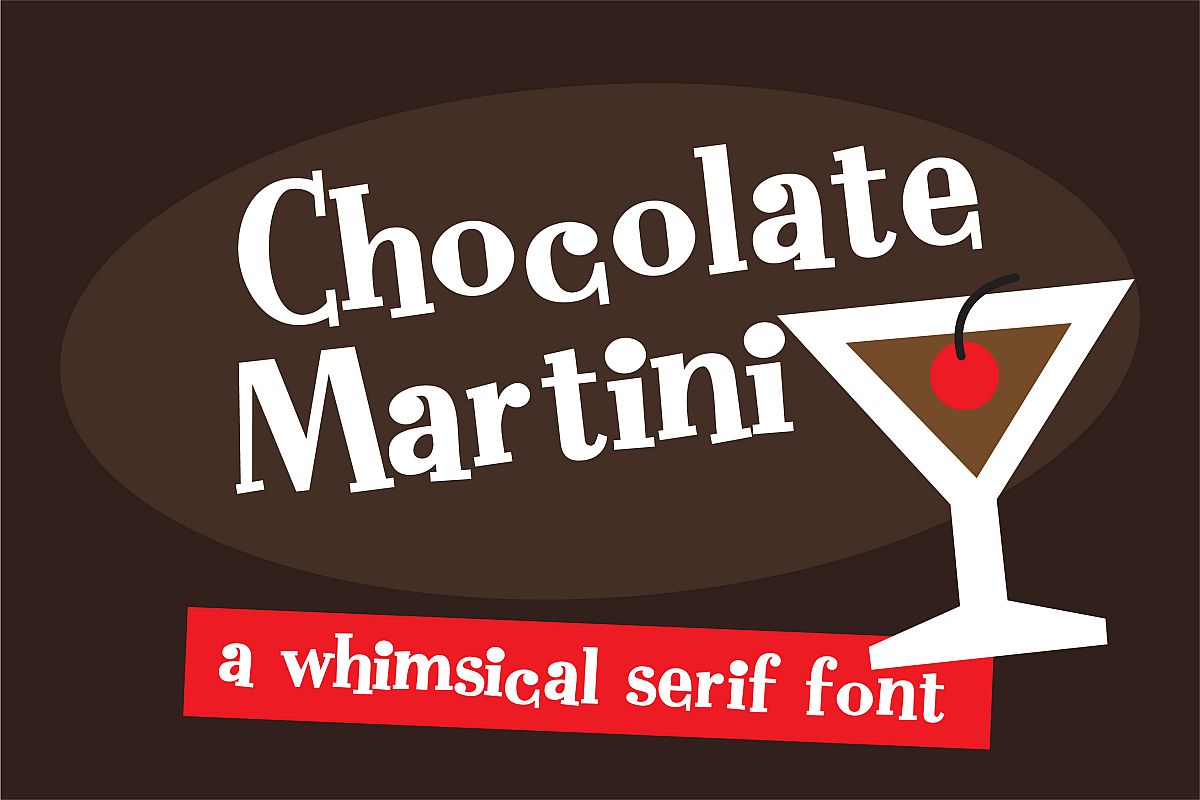
ZP Chocolate Martini
This whimsical and fun serif font has a bouncy baseline and giant dots where needed. Check out her sister sans serif font: ZP Dirty Martini